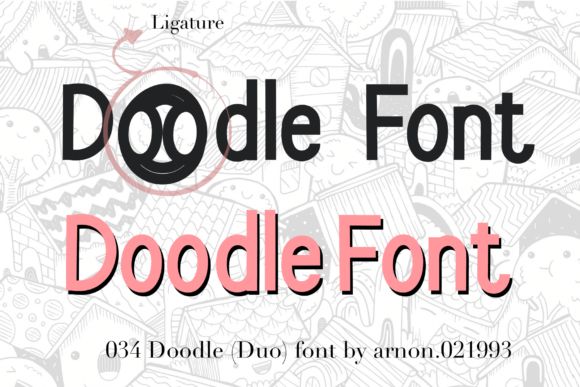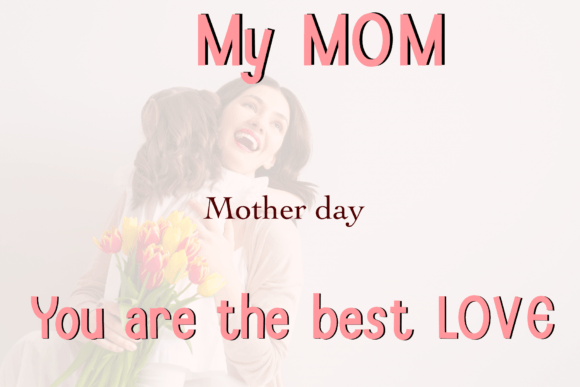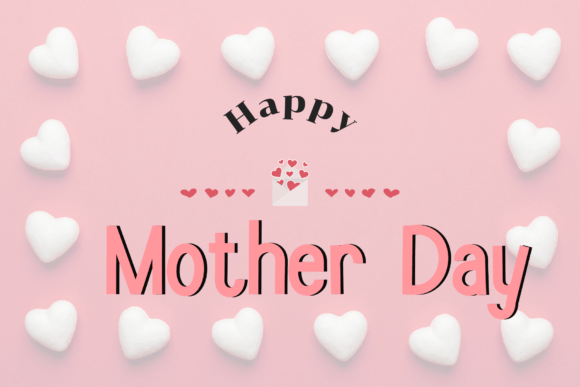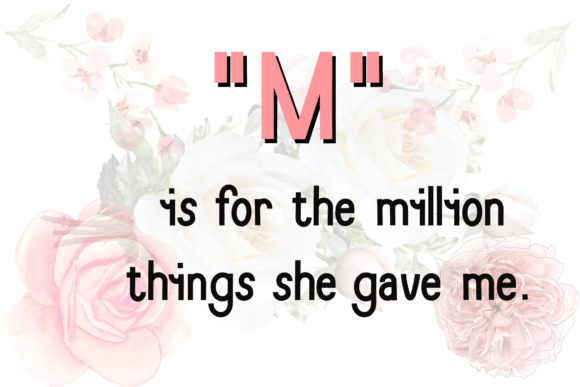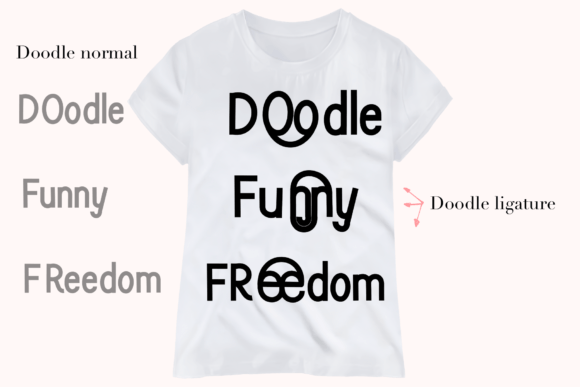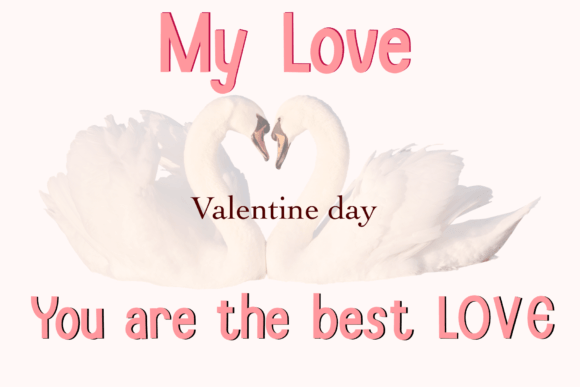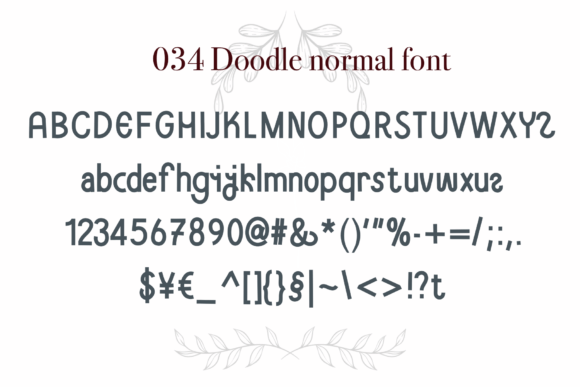
Unleashing Creativity with the Doodle Font
Have you ever found yourself lost in a world of creativity, surrounded by scribbles and doodles on a piece of paper? That’s where the magic begins – the moment when imagination takes over, and the ordinary becomes extraordinary. It’s in these moments that we discover the beauty of self-expression, and the Doodle Font is the perfect reflection of that.
This charming Sans Serif font combines modern elegance with a playful touch, making it a valuable asset for designers seeking to add a touch of whimsy to their work. With its PUA encoding, accessing the font’s amazing glyphs and ligatures is a breeze, allowing designers to unlock new possibilities and push the boundaries of their creativity.
Doodle Font Key Features
- Unique Hand-Drawn Style: Doodle Font features a distinctive, hand-drawn aesthetic that adds a touch of personality to any design.
Doodle Font Review
I’ve been playing around with Doodle Font for a while now, and I’m excited to share my thoughts on it.
Doodle Font has a playful, whimsical feel to it that’s perfect for creative projects or designs that need a touch of personality.
- The font’s unique, hand-drawn style is visually appealing and adds a lot of character to any design.
- The font is highly customizable, with a wide range of styles and sizes to choose from.
- It’s also highly legible, making it suitable for body text or headlines.
While Doodle Font is a great choice for many projects, it’s not without its limitations.
- The font may not be suitable for formal or professional designs, as it has a more playful tone.
- The font’s hand-drawn style can sometimes make it difficult to read in smaller sizes or at a distance.
Overall, I think Doodle Font is a great choice for designers looking for a unique, creative font. While it may have some limitations, its playful style and high level of customizability make it a valuable addition to any design toolkit.
Doodle Font is perfect for:
- Adding a playful touch to titles and headings.
- Creating eye-catching social media graphics.
- Designing children’s educational materials.